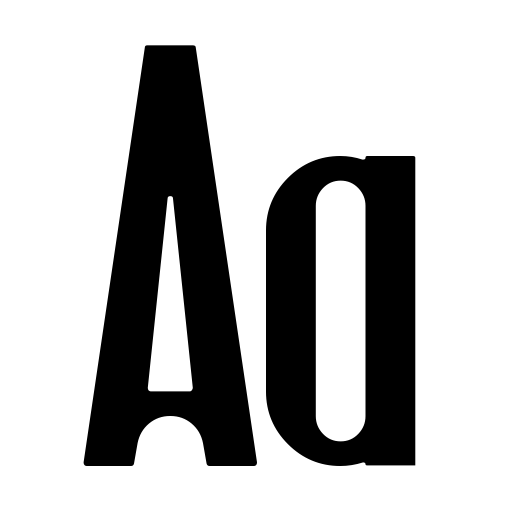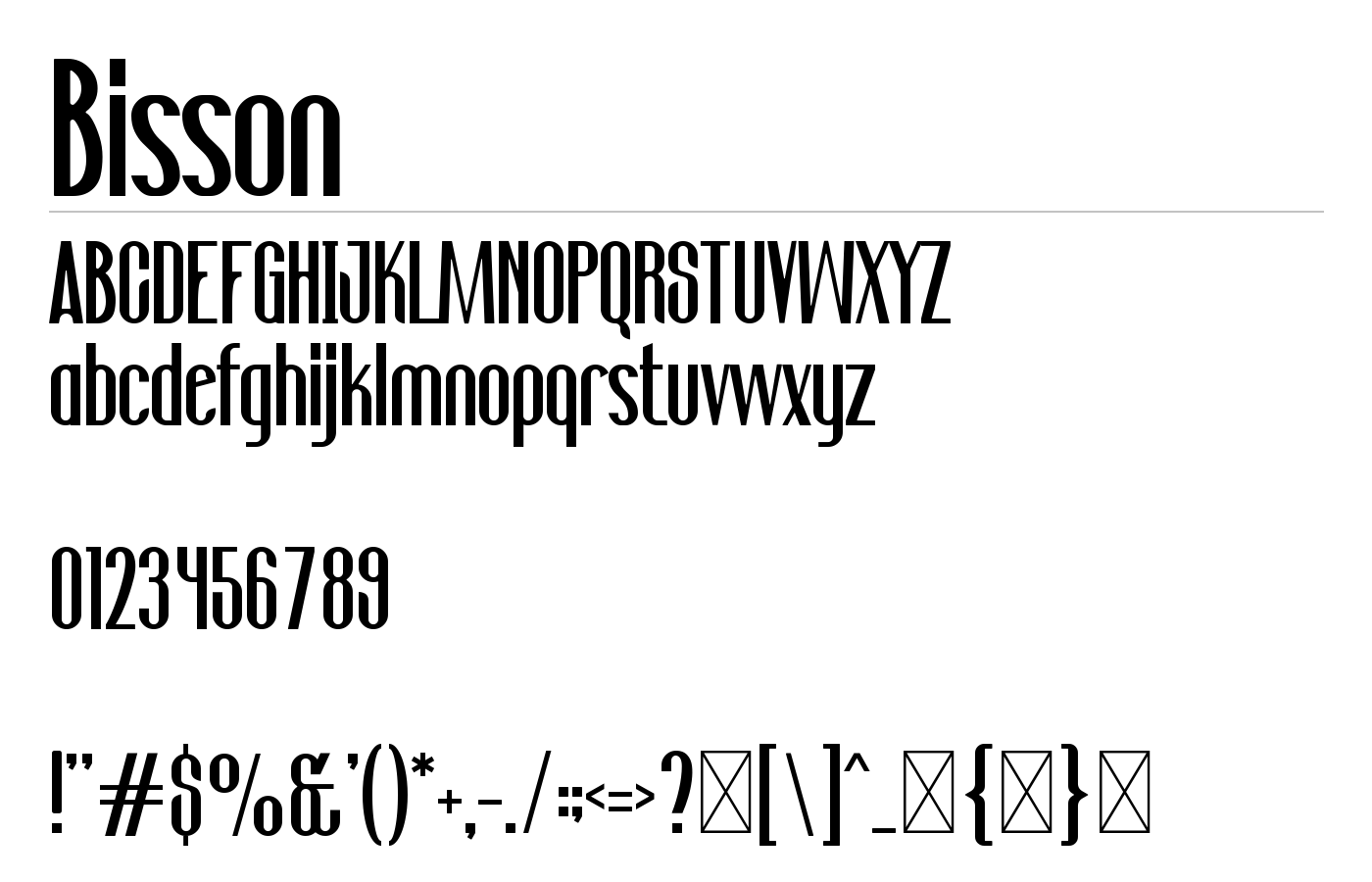
Bisson is a tall, condensed sans serif font with a modern, slightly art-deco feel. Its narrow letterforms and consistent stroke weight create a sleek and elegant appearance, making it ideal for striking headlines, logos, and stylish branding projects where a unique and contemporary look is needed.
Bisson Font
About Bisson Font